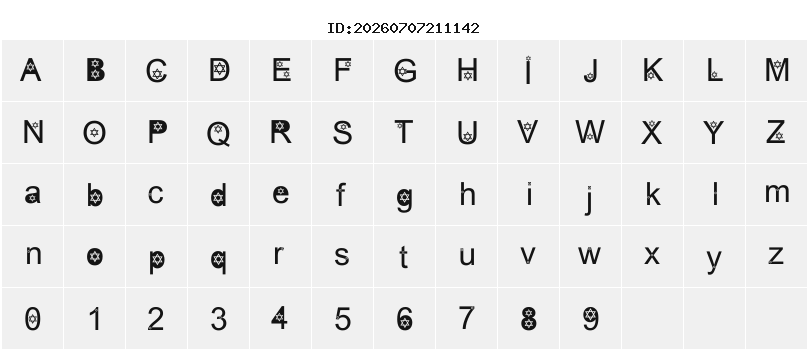
• Font Name: Davids Star
• Full Font Name: Davids Star
About Davids Star.ttf
Davids Star.ttf is a modern, elegant sans-serif font designed for ultimate readability and visual harmony. Perfect for branding, headlines, web design, and print materials.